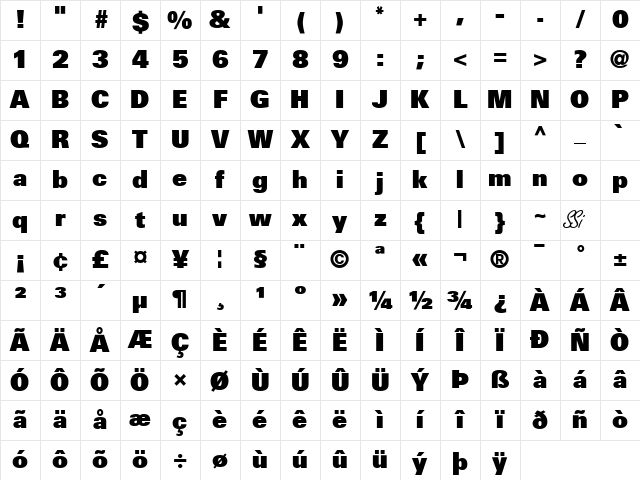
Complete Nova Ultra SSi Extra Black glyph index. Displaying only characters natively supported by Nova Ultra SSi Extra Black font.
Nova Ultra SSi is a composed and adaptable typeface that performs quietly and consistently across a wide range of design contexts.